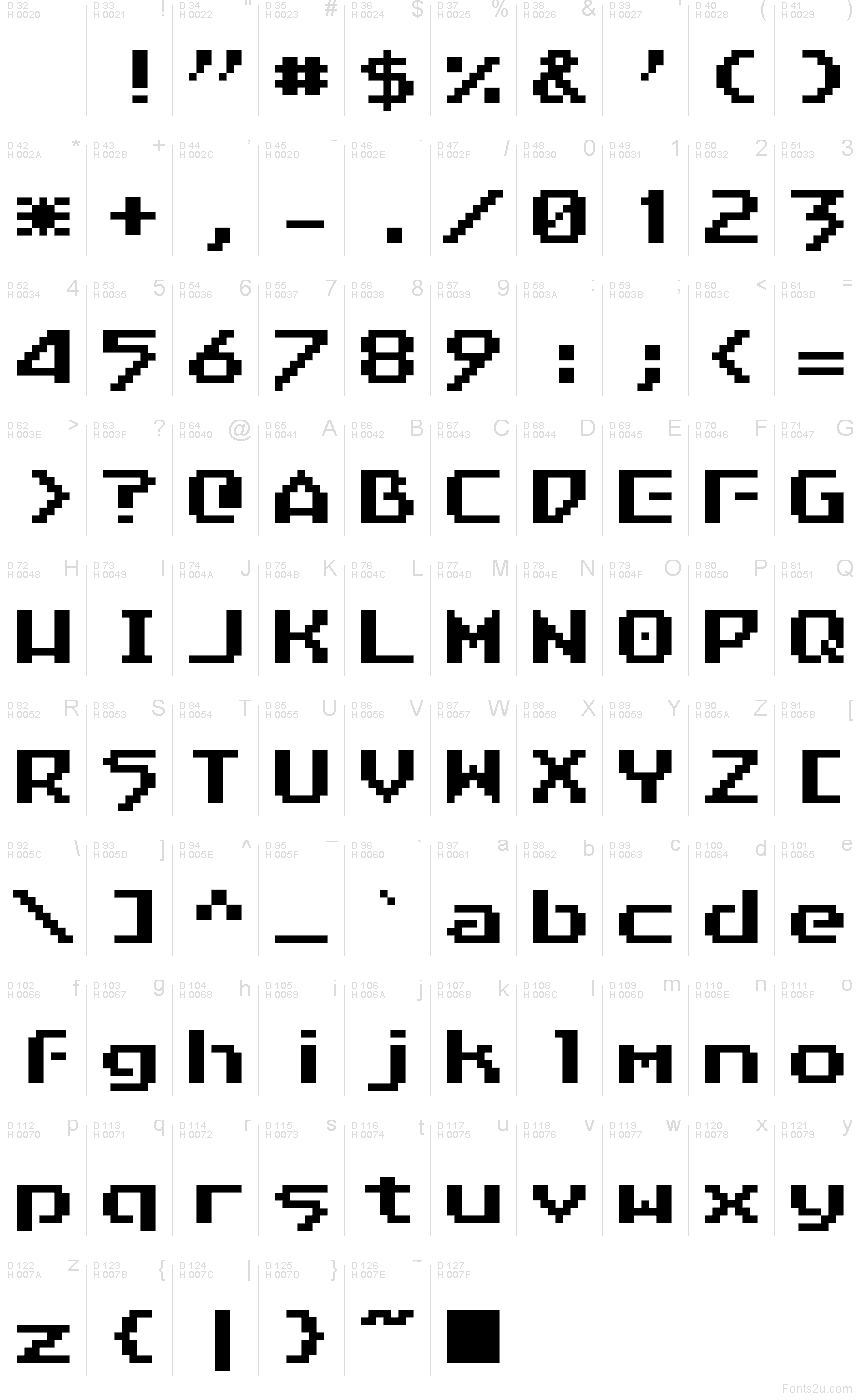
Gorrister by Caveras and Cliff Modes is a free pixel display font built from stark, rectilinear strokes. Its letters have an early computer-screen look, with squared openings, abrupt corners, and irregular block widths that keep the forms from feeling mechanically uniform. The shapes are blunt and spare.
Game title screens are its clearest setting because the stepped construction recalls low-resolution graphics and feels native to science-fiction or arcade artwork. That same severe geometry can shape music posters and technology branding, and in editorial design it offers specialist magazines a purposeful visual reference to early digital interfaces and computer culture.
Gorrister is a sans-serif pixel font recreation based on the original user-interface text font in the PC video game I Have No Mouth, and I Must Scream, developed by Cyberdreams and The Dreamers Guild and released by Cyberdreams in 1995.
- 454 characters total
- Monospaced sans-serif typeface
- Additional special characters, diacritic variants, and unique glyphs
Gorrister is a futuristic sans-serif pixel font recreation based on the original UI text font appearing in the PC video game I Have No Mouth, and I Must Scream, developed by Cyberdreams and The Dreamers Guild and released by Cyberdreams in 1995.